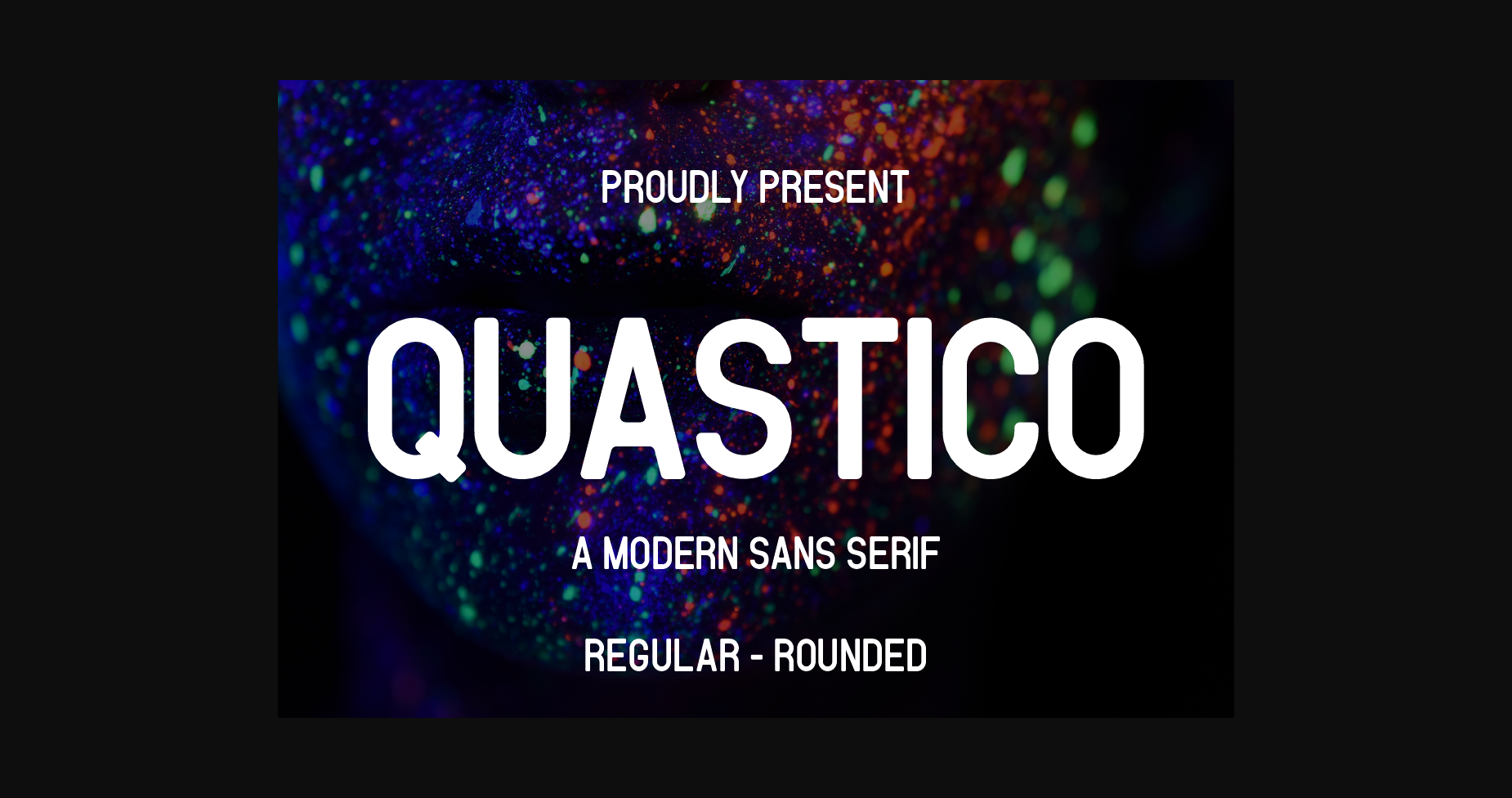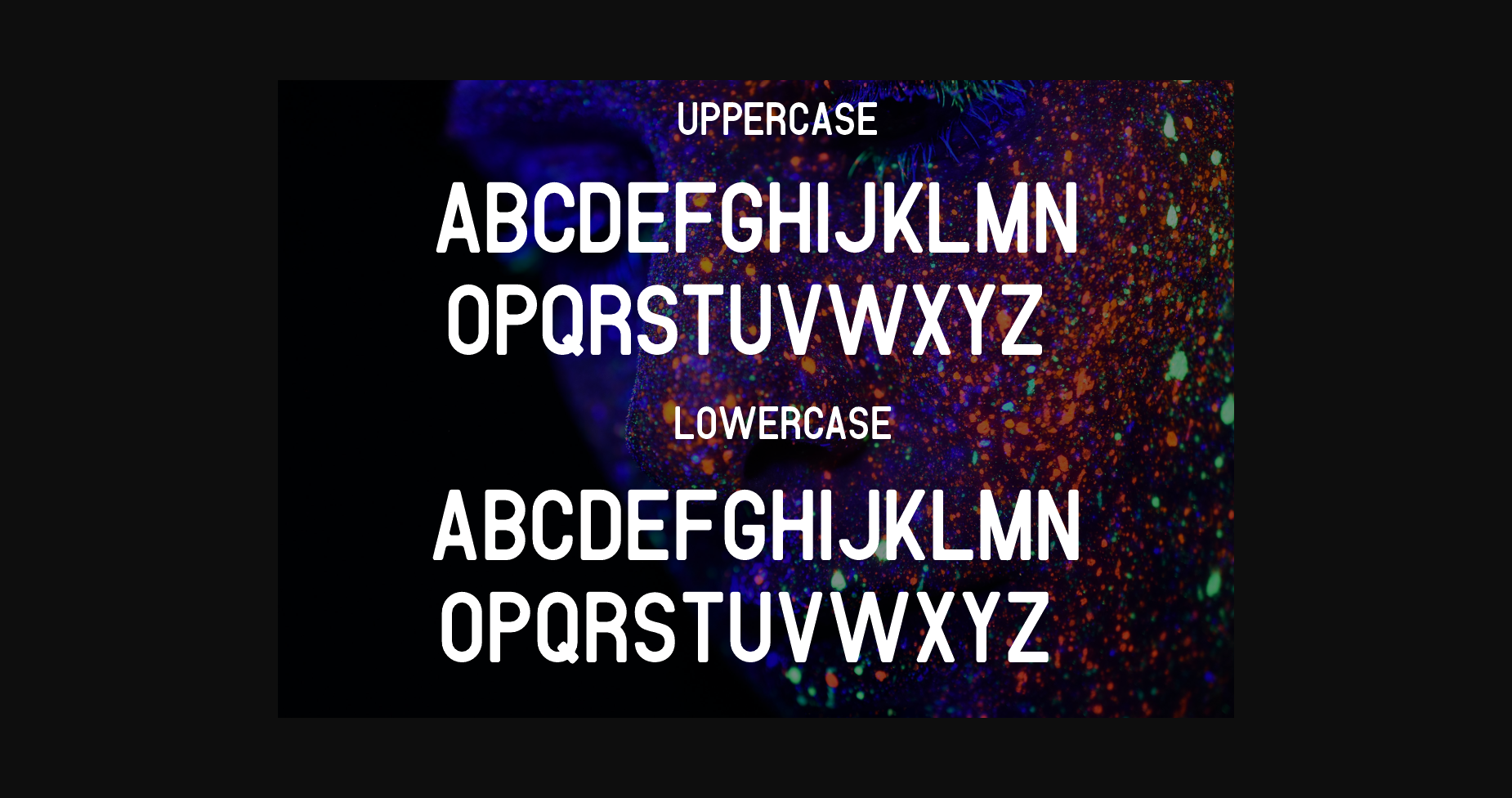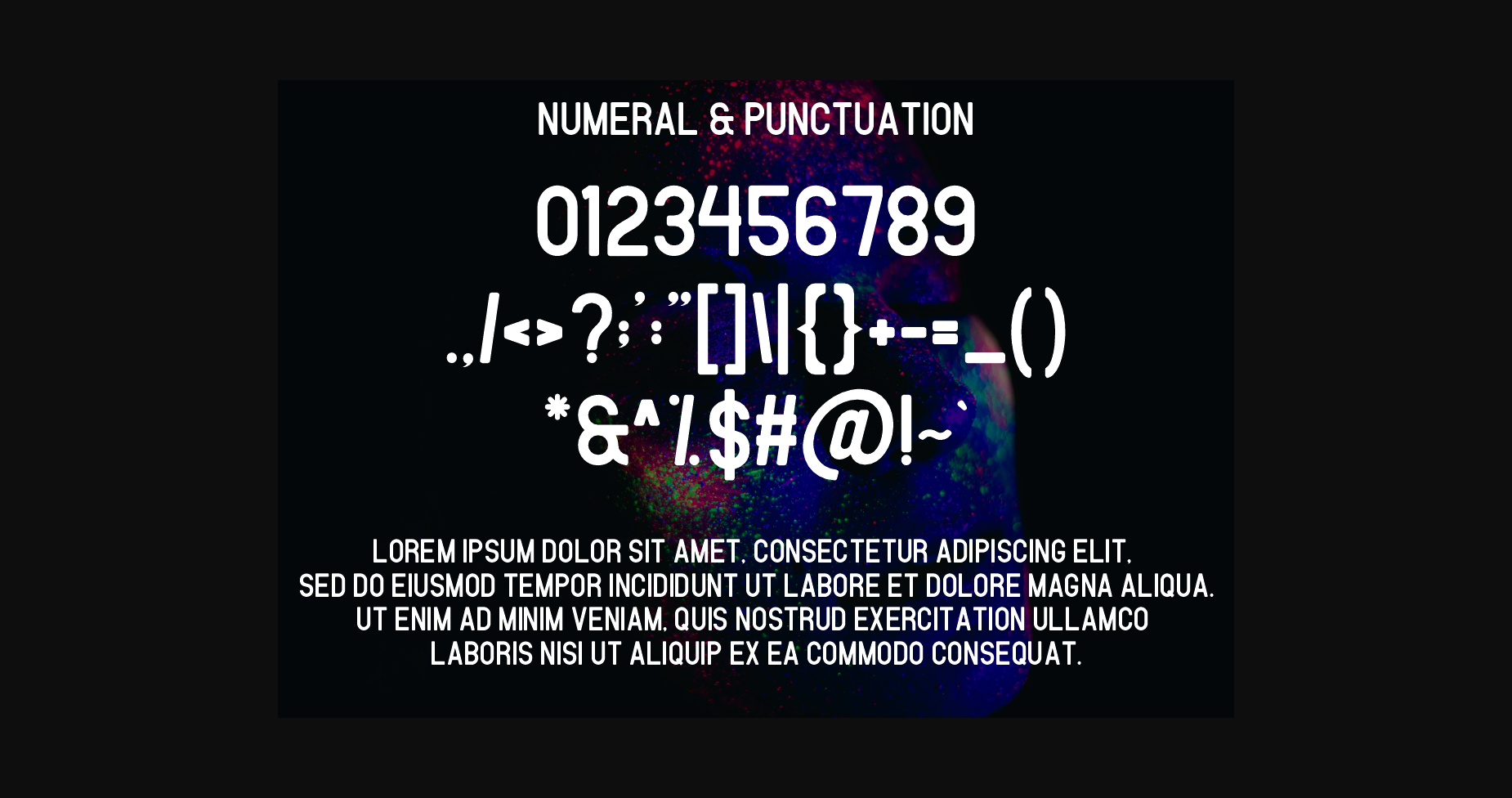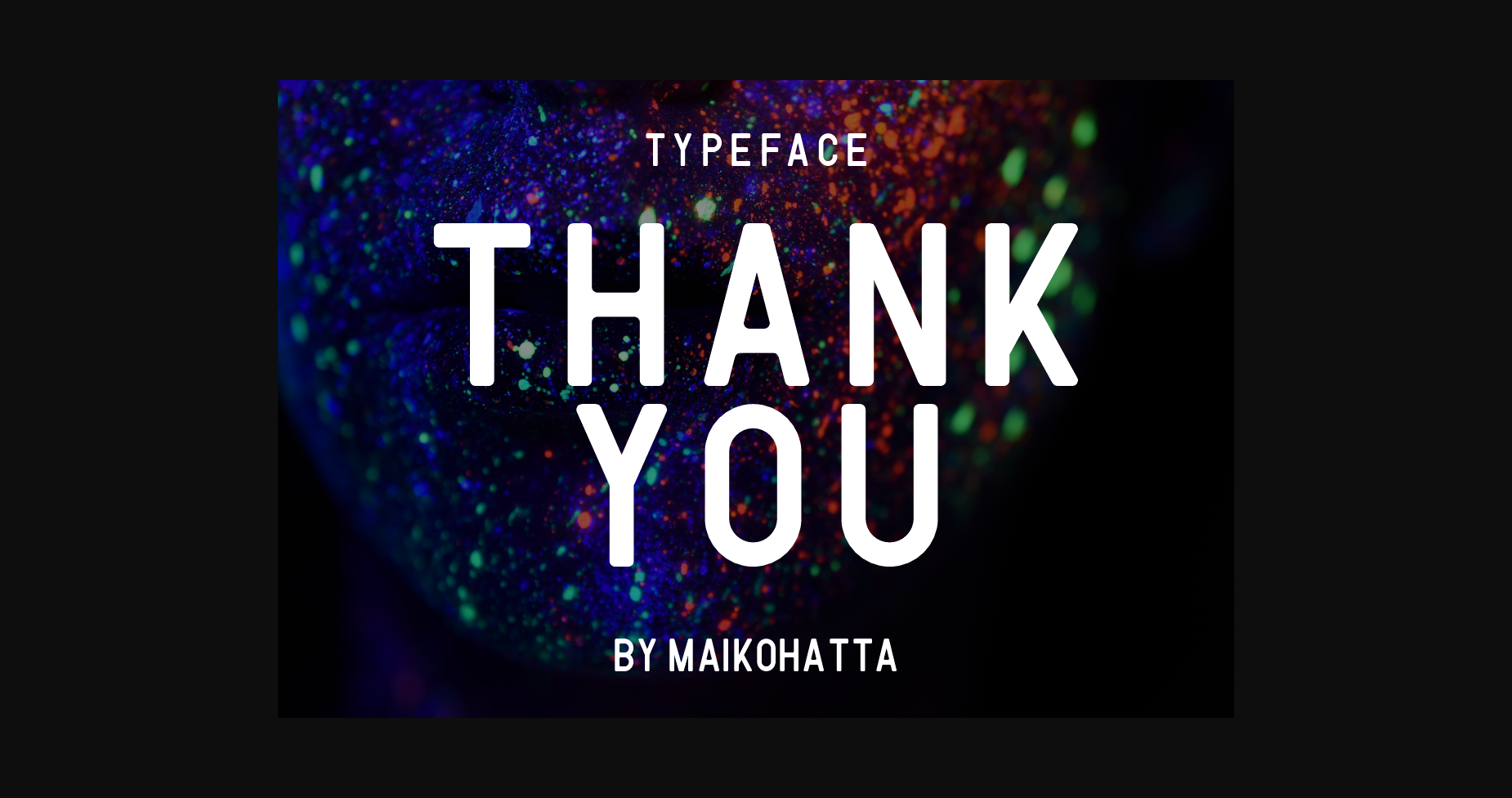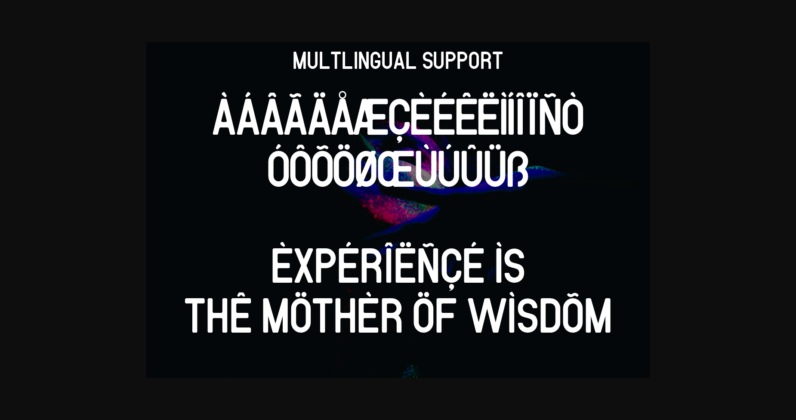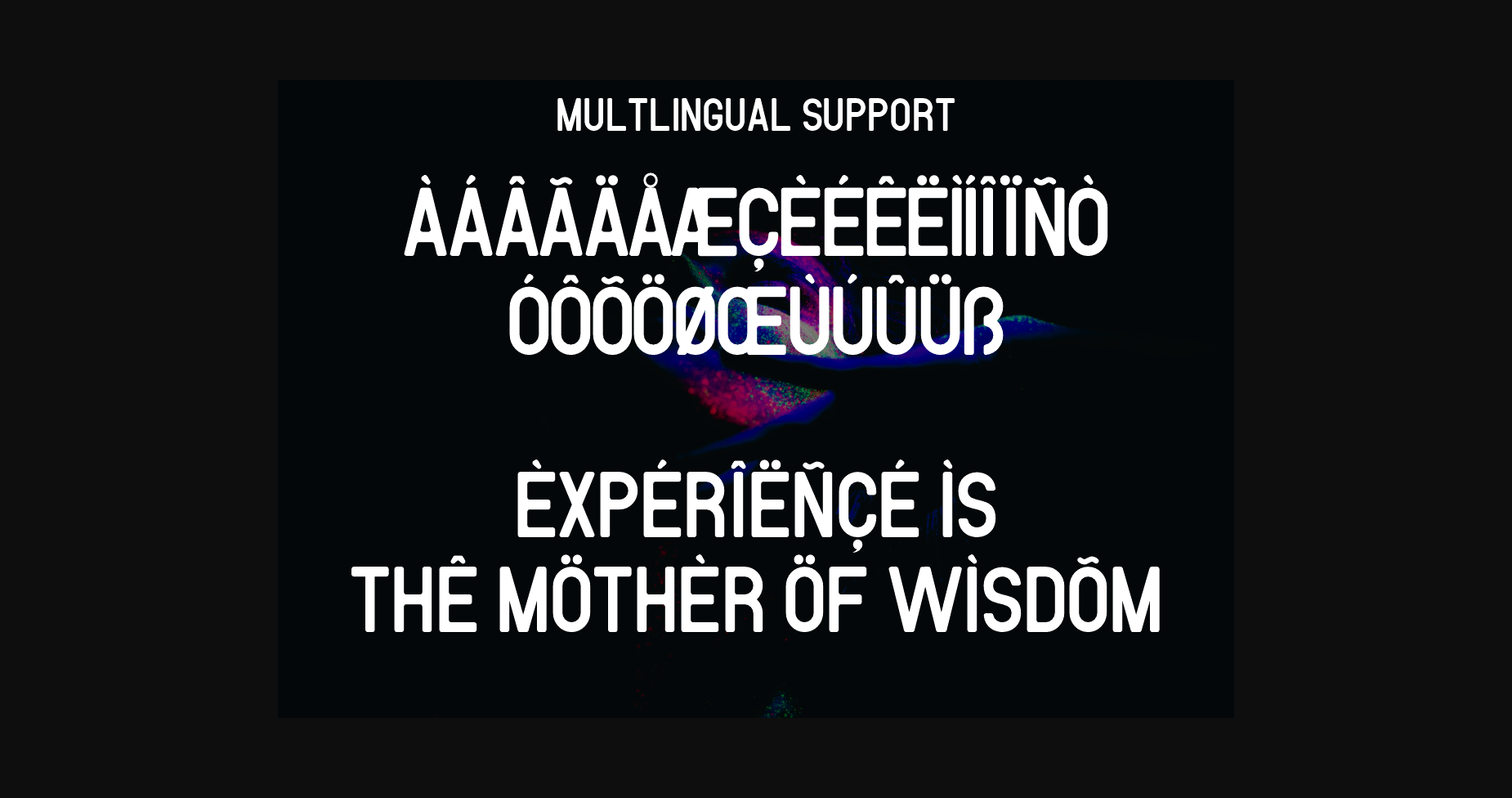
About Quastico Font
Quastico is a cool and modern sans-serif font that embodies contemporary style and elegance. Its clean and minimalist letterforms exude confidence and professionalism, making it perfect for a wide range of design projects. With its versatility and legibility, Quastico is ideal for branding, editorial design, web interfaces, and any application where a sleek and modern look is desired.